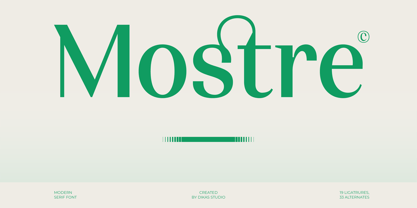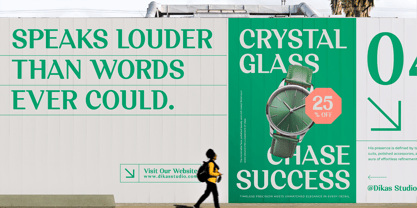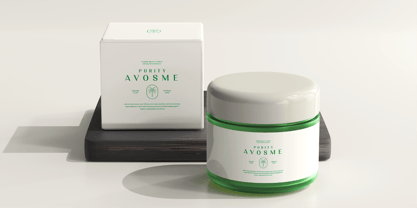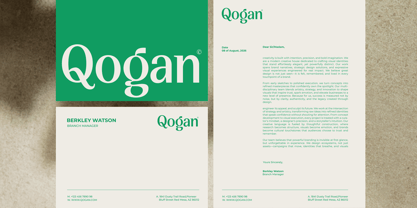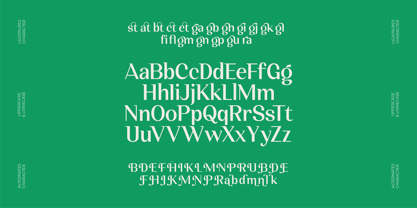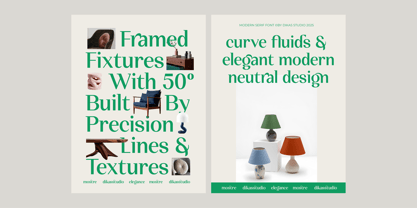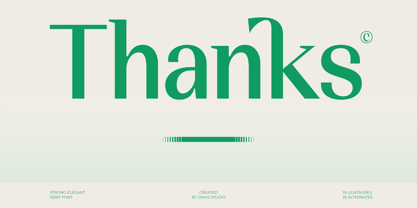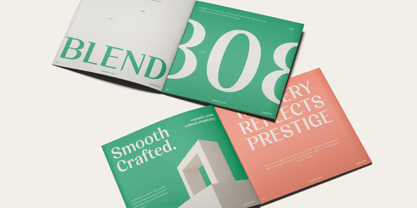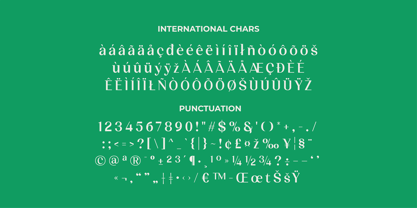
Mostre
by Dikas Studio
The Mostre Font Family was designed by Andika Setiawan and published by Dikas Studio. Mostre contains 2 styles and family package options.
Mostre is an elegant sans serif font with a beautiful, straight-line style that brings a modern and refined feel to any design. It includes stylish alternate characters and smooth ligatures, giving you more creative flexibility and unique letter combinations. Perfect for branding, logos, headlines, posters, and any project that needs clean and graceful typography. Mostre comes in two styles: Regular and Rough, allowing you to choose between a polished look or a textured, handcrafted feel.